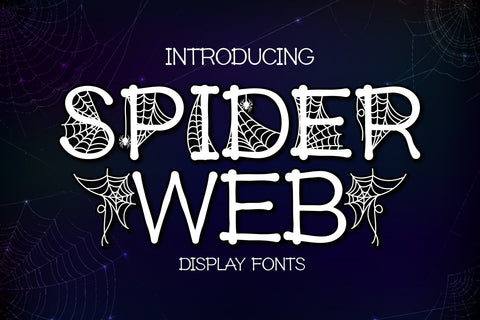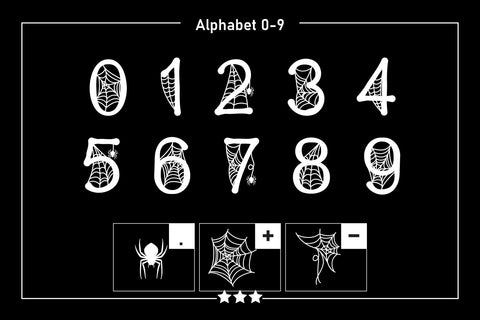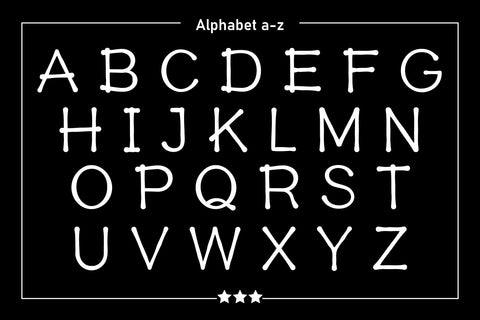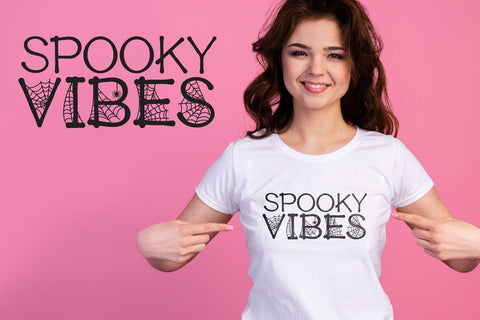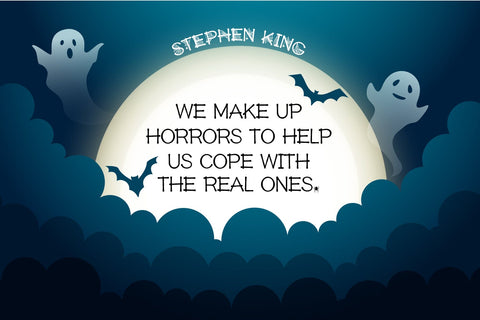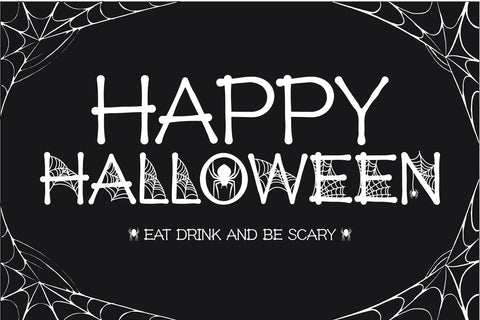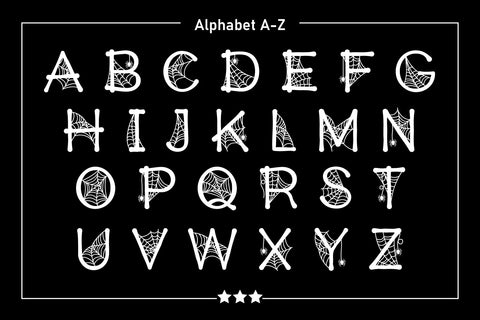
Spider Web Fonts
Spider Web Fonts are fun display fonts. It has a Halloween vibe. Suitable for a variety of designs such as Halloween, and children’s themes. It is perfect for logos, t-shirts, papers, print designs, website headers, photo frames, flyers, music covers, posters, image sliders, and much more.